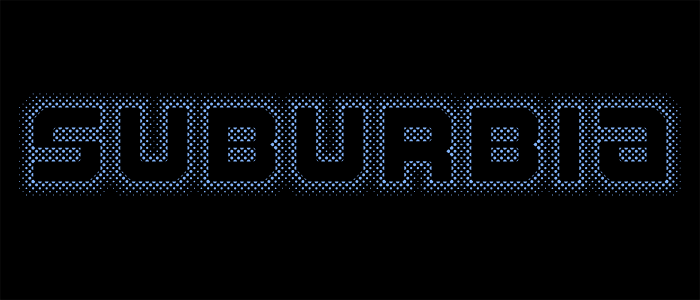
Excellent!
The sample shows the shading perfectly.
Congratulations on the TP; your suburbia looks much nicer than most real suburbs ;)
Excellent!
Gorgeous.
I love your font four!